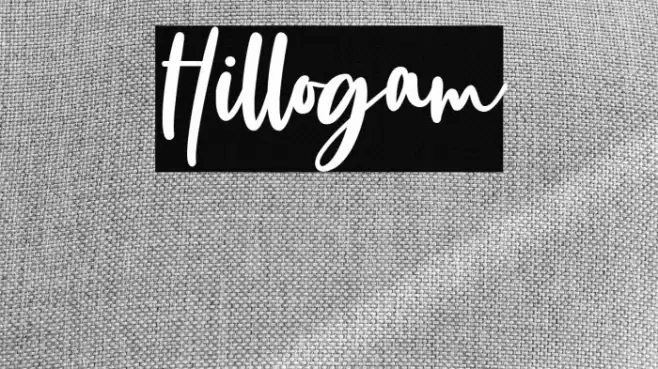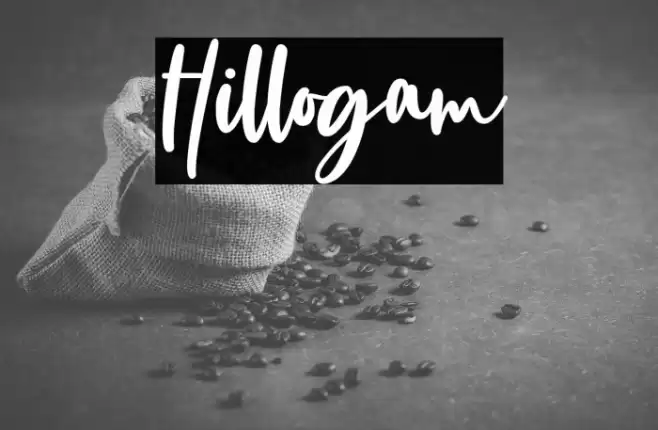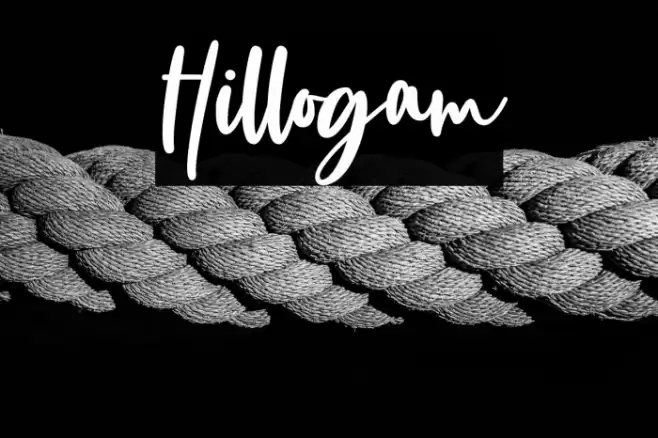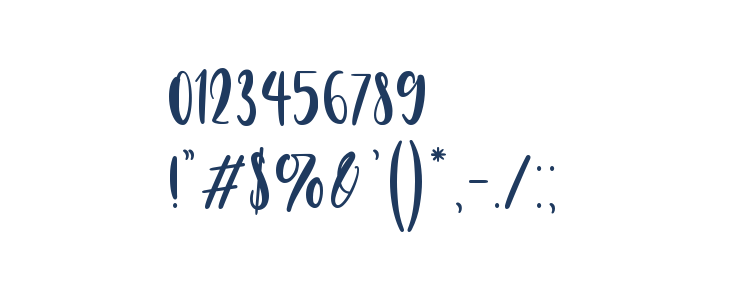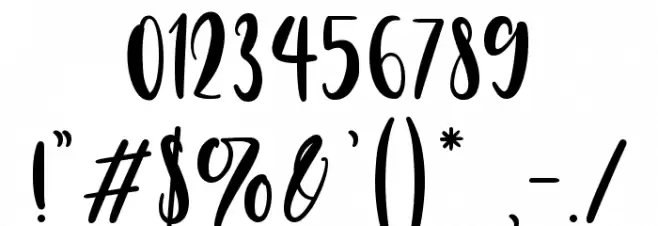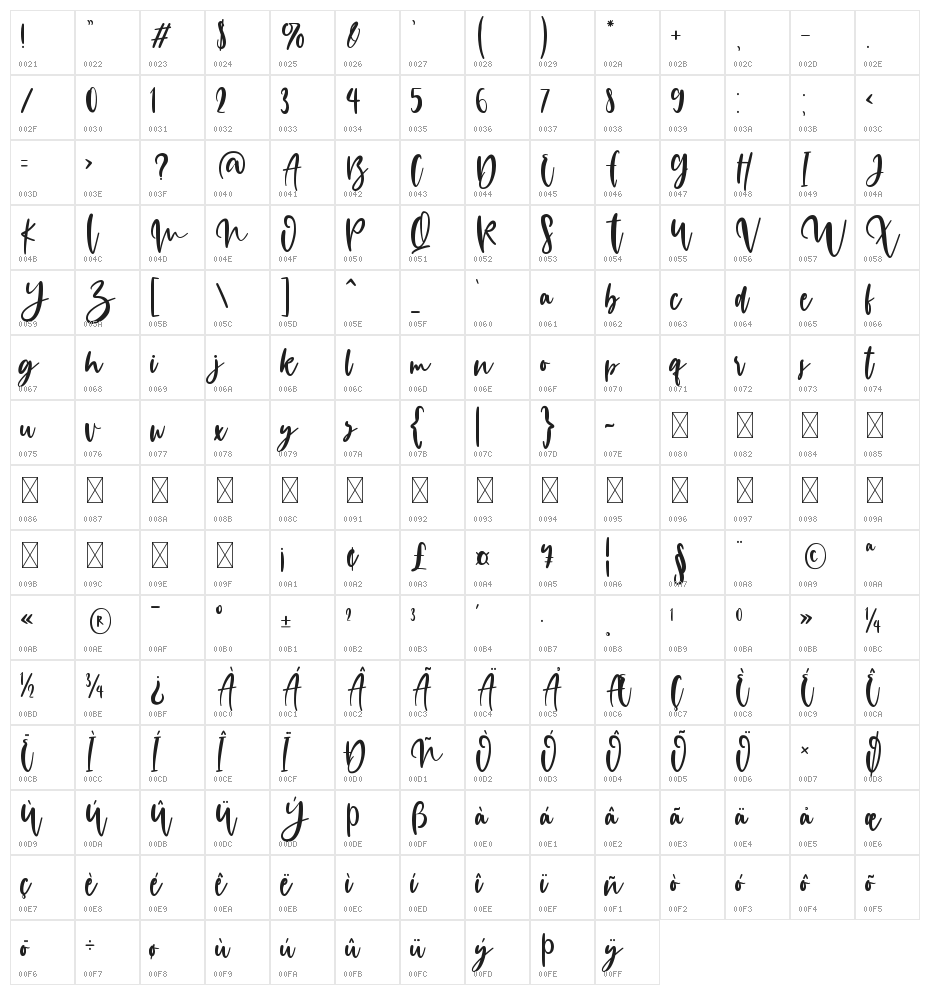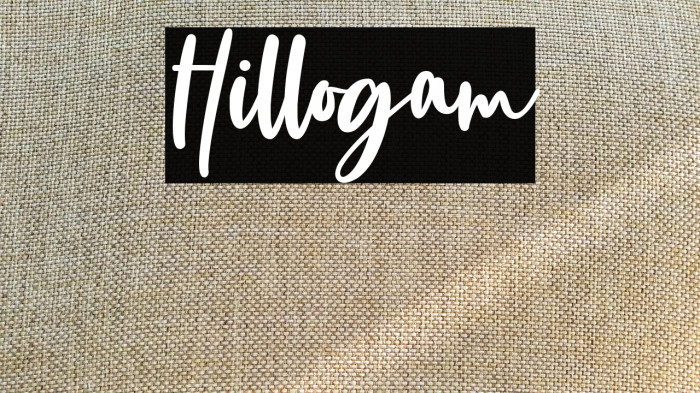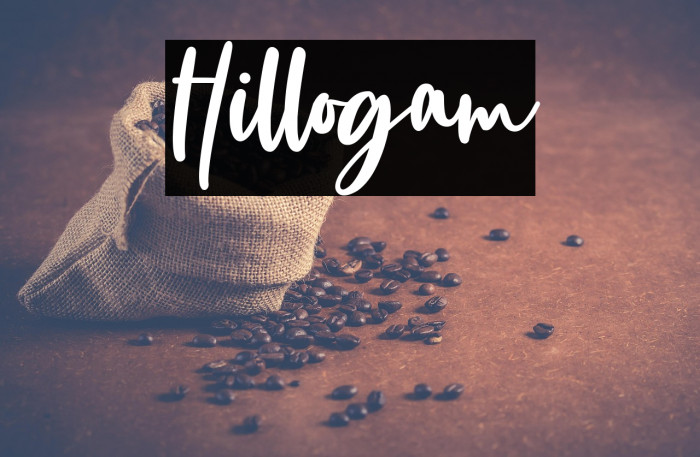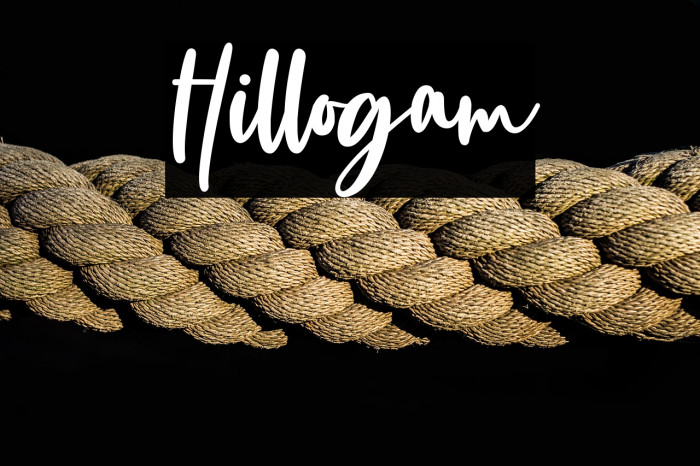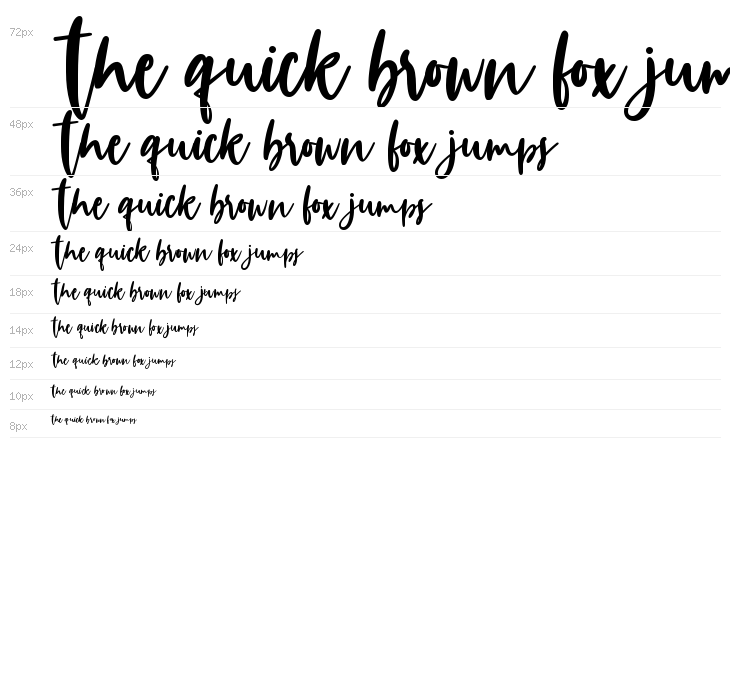
Hillogam Font
Hillogam Description
This font exudes a playful and energetic vibe with its bold, flowing script style. The letters are characterized by their smooth, continuous strokes and varying thickness, creating a dynamic and lively appearance. The uppercase letters are tall and elegant, while the lowercase letters maintain a consistent flow, enhancing the font's overall cohesiveness. The numbers and special characters are designed to match the whimsical nature of the alphabet, making them suitable for creative and informal applications. The font's handwritten aesthetic adds a personal touch, making it ideal for projects that require a friendly and approachable feel.
A bold, playful script font with smooth, flowing strokes and a lively handwritten style from Regular fonts.
- Proposed Projects: Ideal for greeting cards, invitations, branding, social media graphics, and any project that benefits from a personal, creative touch.
- Use Case: Logos, Headlines, Invitations